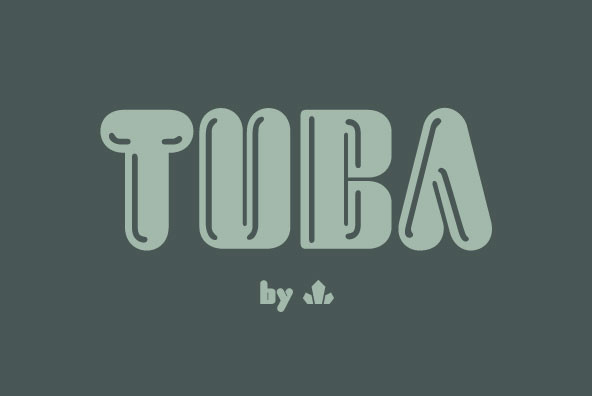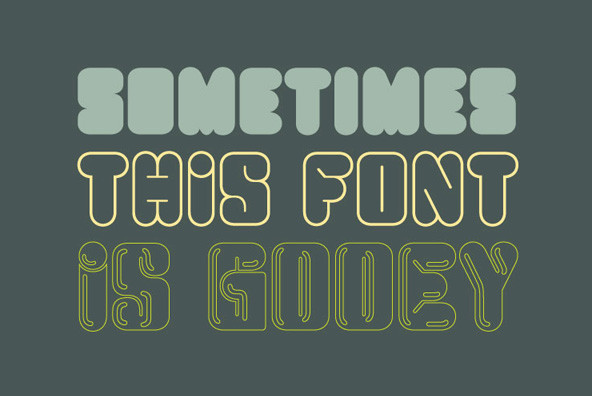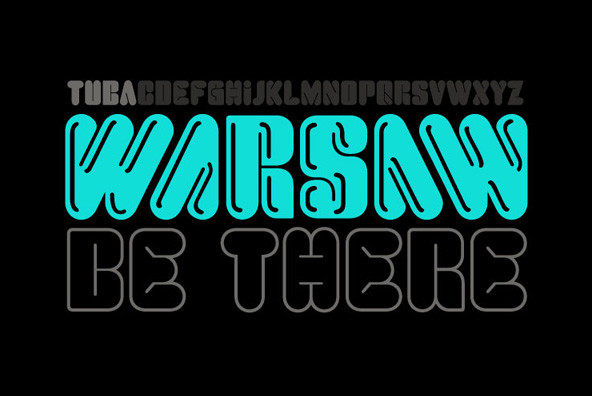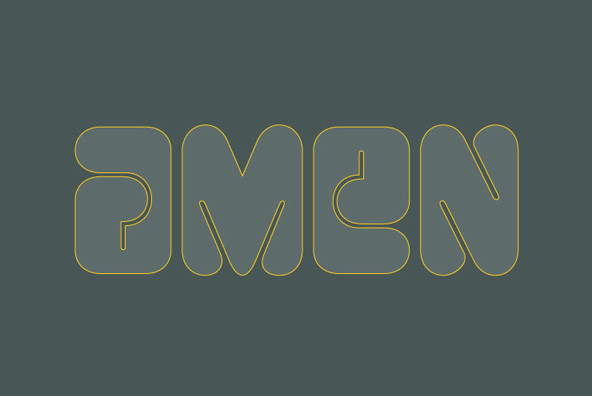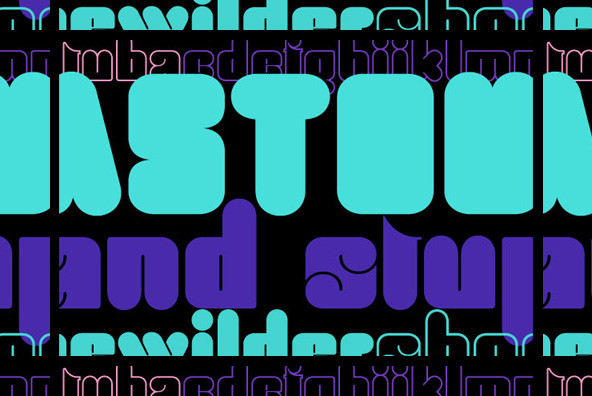
Initially commissioned in the summer of 2009 for a popular North American ice cream parlor chain we cannot name, Tuba started with a reconceptualization of a somewhat flawed '72 alphabet idea by Swiss graphic designer Erwin Poell.
Initially commissioned in the summer of 2009 for a popular North American ice cream parlor chain we cannot name, Tuba started with a reconceptualization of a somewhat flawed '72 alphabet idea by Swiss graphic designer Erwin Poell. During the back-and-forth of the custom project, other ideas seeped into the design, mostly from other Canada Type fonts, like Fab, Jonah, Jojo and Teaspoon. The end result was what the client called a 'sugar circuit trigger alphabet'. This now is the retail version of that project. Tuba's main style is a straight-forward mix of 60s/70s art nouveau ideas and late-70s/early-80s tube aesthetic. The Highlight and Outline styles are almost necessary spinoffs for this kind of typeface. And the all-caps Black style is a nod to the fat font fad of the past couple of years. All styles contain many alternates - so many that each style is almost two fonts in one. Make sure to check out the character sets for a few nice and useful surprises. Life's too short. Seek sweetness. Get gooey.